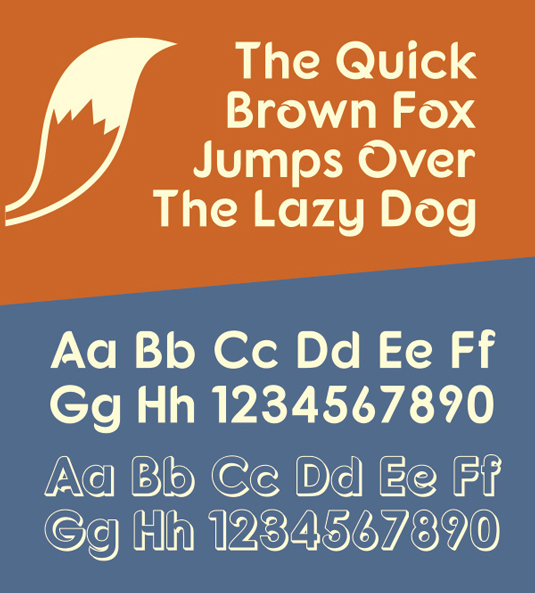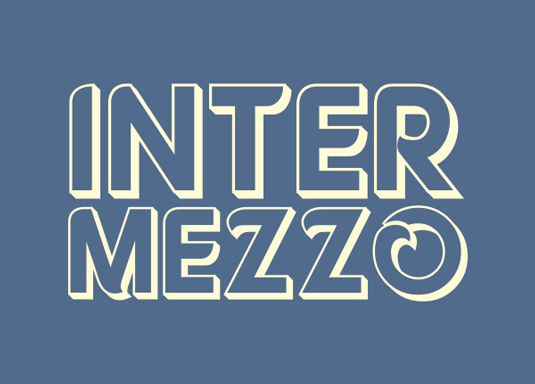
Font of the day: Fonarto
Every day we showcase the best fonts on the web. Today it's Fonarto by Arwan Sutanto, which is totally free to download.
Fonarto by Arwan Sutanto
A sans serif typeface with a retro feel, Fonarto was created by graphic designer Arwan Sutanto. "Fonarto has a modern style with classic impression," he comments on Behance.